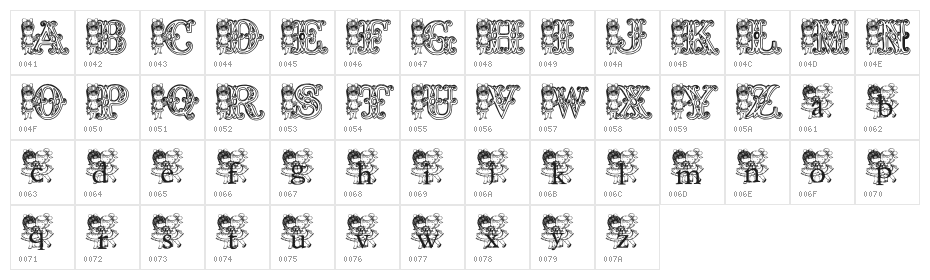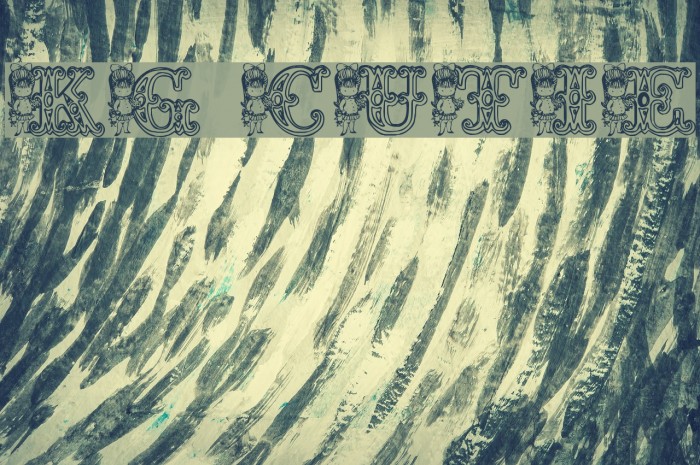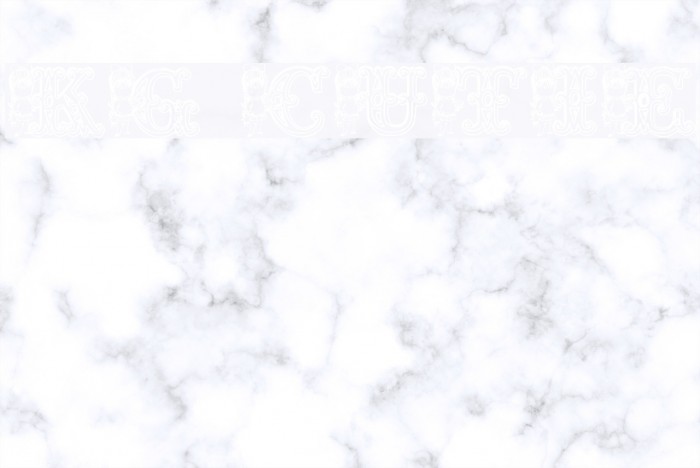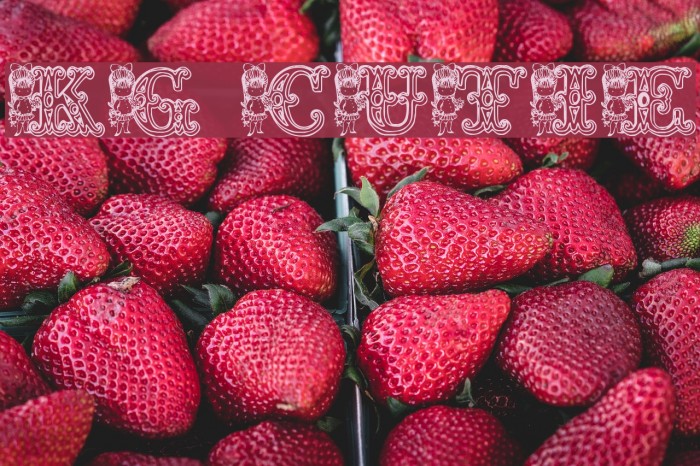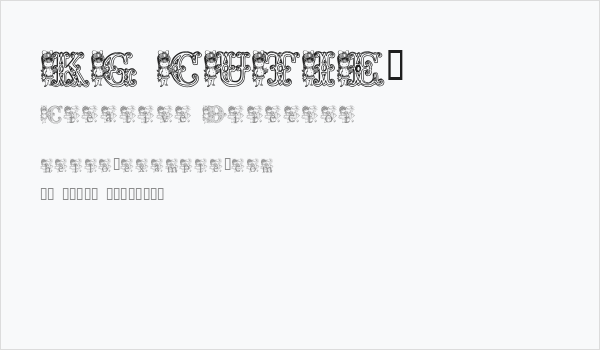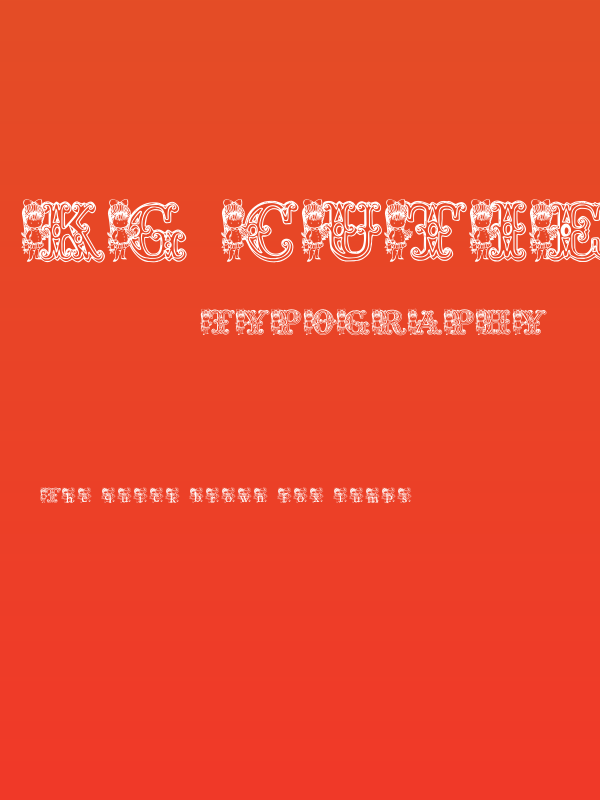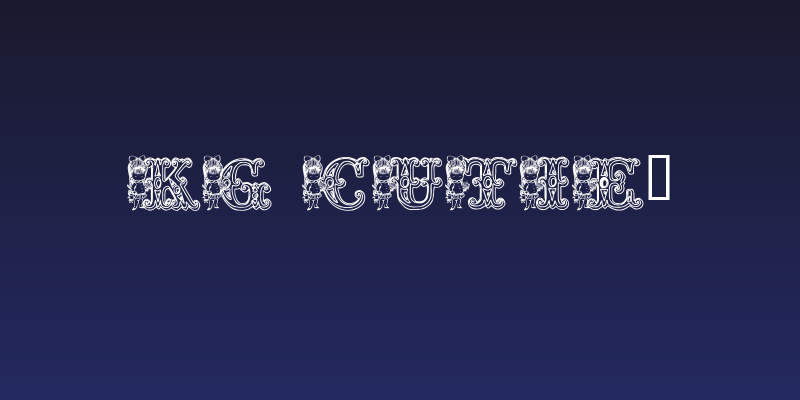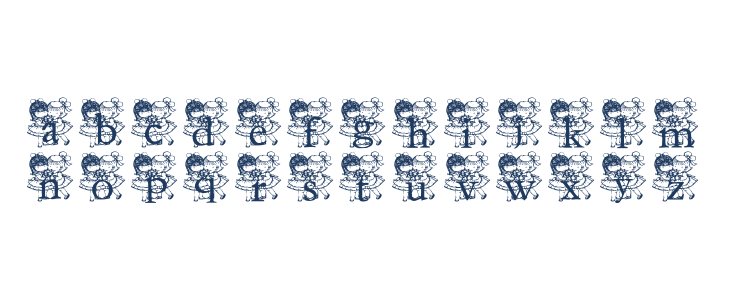
KG CUTIE1 Font
KG CUTIE1 Description
This font features an intricate and decorative style, with each character adorned with playful and whimsical elements. The uppercase and lowercase letters are embellished with ornate details, creating a lively and engaging appearance. The design incorporates floral and curly motifs, giving it a unique and artistic flair. The characters are bold and eye-catching, making them suitable for creative and expressive projects. The font's elaborate style is perfect for adding a touch of fun and creativity to any design.
Proposed ProjectsIdeal for children's book covers, playful invitations, greeting cards, and creative branding projects.